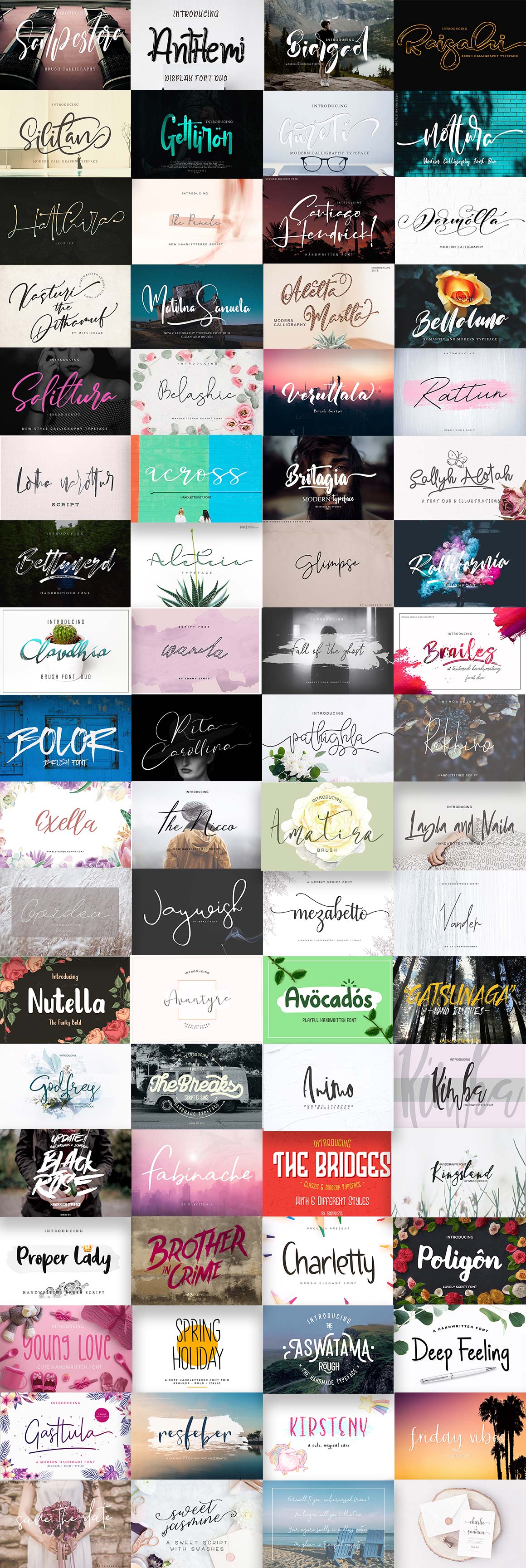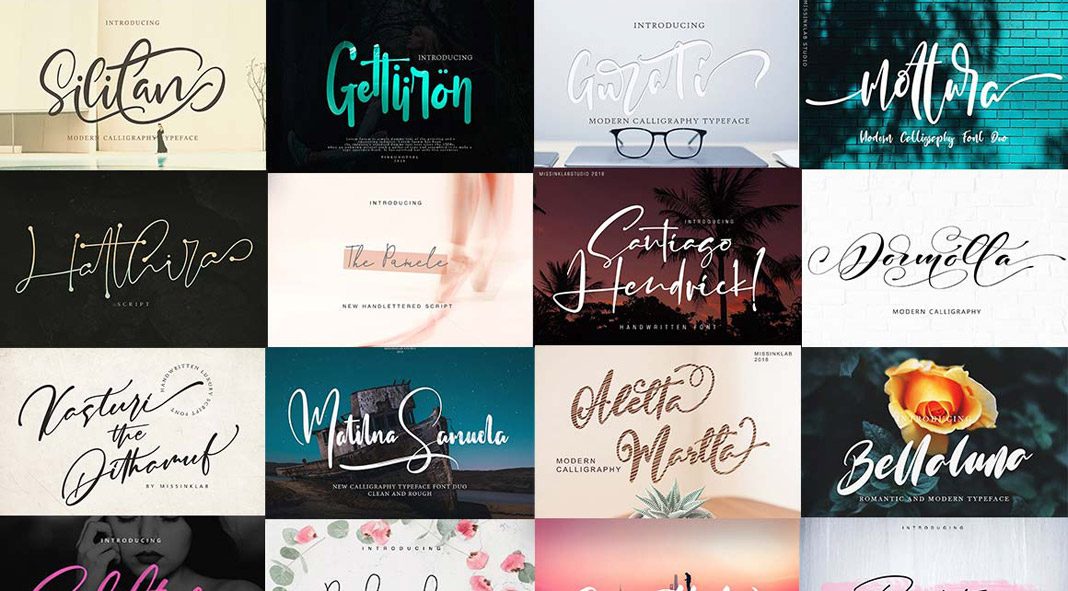
Some fonts convey the right emotion or message more than others. Some are appropriate for a certain event, while others can inject a vibrant and fun touch to designs. And many people associate certain font styles with certain assumptions. For instance, a study found that diners who received menus written in fancy fonts deemed that the chef had more skills compared to those whose menus displayed simpler fonts. Whatever industry you are in, you need an array of fonts that can help you get your brand message across. Showcasing well-curated fonts and design assets, Pixelo offers special bundles that can be used across different industries.
Pixelo currently presents a new collection, The Modern Fonts Bundle. Featuring a total of 89 unique fonts, the bundle showcases creations from the leading font creators worldwide. These premium design assets are ideal for invitations, menus, headings, branding materials, packaging and so much more. If you are after a contemporary look for your projects, these modern font styles will give you that edge. The bundle is a treasure trove of stylish fonts. With The Modern Fonts Bundle, the design possibilities are endless! All the fonts in the collection have an extended use license, which means you can use these design assets over an unlimited number of commercial or personal projects. With a one-time purchase, you get a permanent download link for all these fonts. And should you have any issues with your bundle, Pixelo has a reliable customer support service and quick response system for all your concerns.
What’s inside The Modern Fonts Bundle?
Here are some of the unique and quality fonts included in this bundle:
Anthemi Font Duo
Anthemi Font Duo by Pineungtype features fun and dynamic curves that are unpredictable and yet make a lot of sense. Reminiscent of a pen marker scribble, this font is quirky but still clean. It’s ideal for quotes, logos, and headlines that need to stand out.
Hatthira
Another offering from Pineungtype, Hatthira is proof that script doesn’t always have to look old-fashioned or even charming. With the addition of dotted endpoints in each letter, what might have been a typical handwritten script style suddenly becomes edgy, minimalist and chic.
Sampestera
This design is from MissinkLab Studio, and it features an italicized handwritten script style with sensual curves and elongated tails for certain letters. This one’s perfect for wedding invitations, quotes, and headers that need a feminine touch.
Dormotta
Also from MissinkLab Studio, this font is as fancy as they come. Featuring a modern calligraphy style with elongated tails and lush strokes, this font is luxurious without being too fussy. It’s still completely readable, ideal for headings and fashion elements.
Silitan
This font is undoubtedly one of the more feminine fonts in this bundle, with wide and thin strokes that give it a light and natural hand-drawn look. This font by MissinkLab Studio works perfectly for any design project that calls for a dainty aesthetic.
Britagia
Partly script and partly print, this font has rich, bold letters that have zero slants but plenty of panache. Like a neat version of marker pen writing with a touch of flair on the tips, this font style will work for blogs, product branding, and events styling.
Bettlunerd
Another unique offering from MissinkLab Studio, this font adds a contemporary touch with the reckless streaks of its hand-written script style. If you want to add a bit of edginess to your designs, this font is the way to go.
Sallyh Alotah & Illustrations
This font features meandering script strokes that are bold and eclectic. The naturalness of the letter curves is accentuated by fun drawings, which include leaves, balloons, butterflies and more.
Font quality is so important to the overall impact of your design. The Modern Fonts Bundle adds contemporary details to various designs. With loads of fonts to choose from, you can take your pick and find what’s perfect for your purpose.